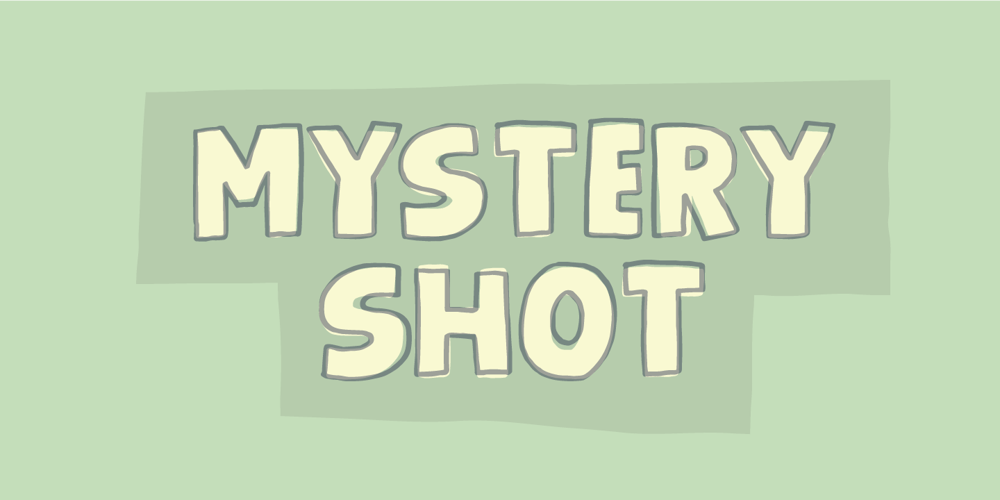
Mystery Shot Font Family was designed by Jakob Fischer and published by PizzaDude.dk. Mystery Shot contains 2 styles and family package options. Mystery Shot is not your every day all-caps comic font. It is handdrawn with a permanent marker, which explains the sometimes rough edges. I’ve made 2 versions that mixes for great results. The stroke of the outline version is designed to fall slightly off here and there, and that was done on purpuse to enhance the handmade look of the regular version. What’s more is that I added 5 slightly different versions of each letter, and the font has multilingual support!